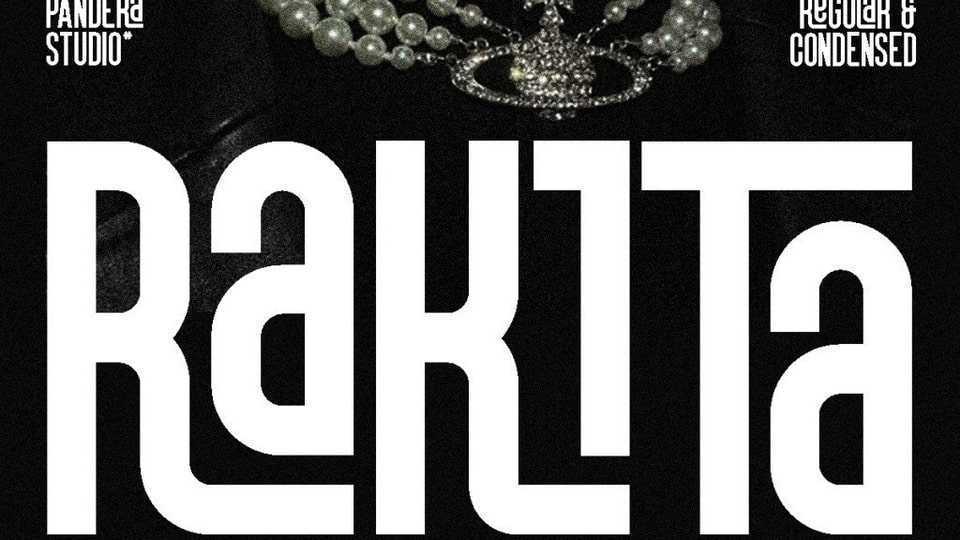
Download Rakita font, a simple, condensed sans serif typeface with a bold and complex personality. It was purposely crafted to be used in large point sizes.